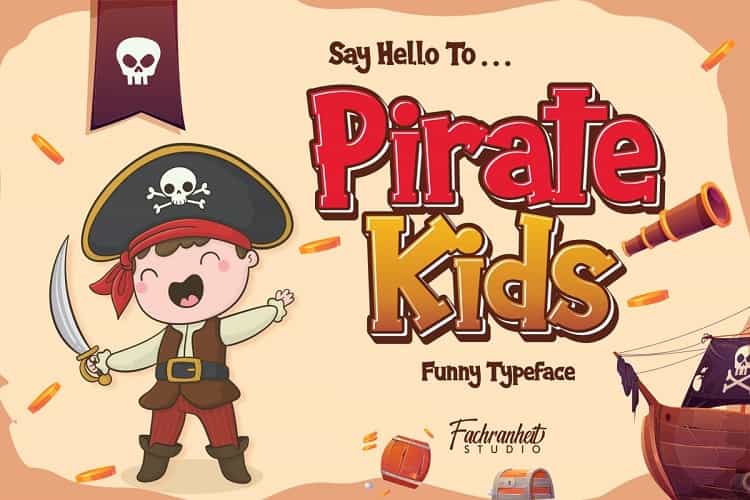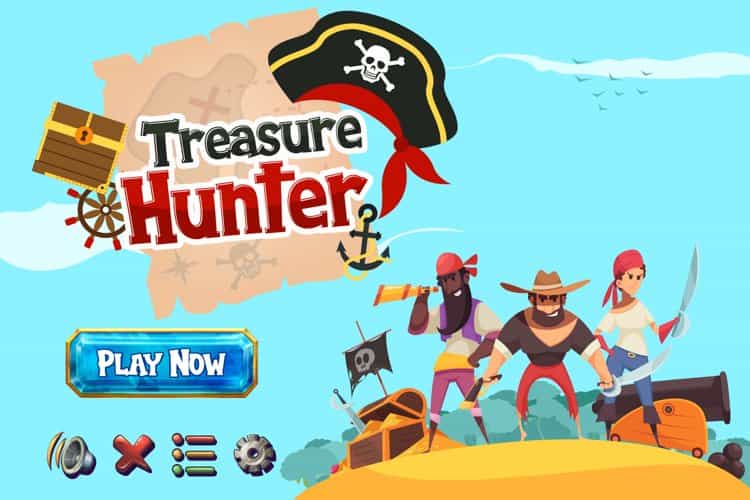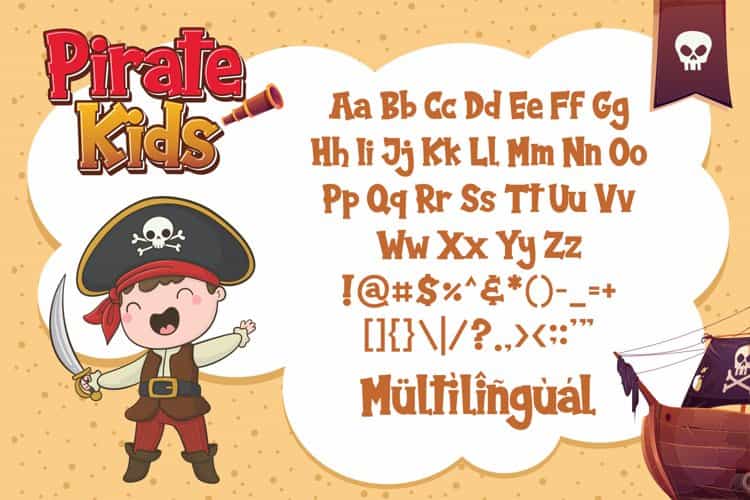
Pirate Kids is a cute and fun cartoon display font that has an immensely friendly appeal to it. It can be used for any purpose from getting the perfect font for your Instagram to finding scripts for calligraphy for home crafts, this font will turn any concept you have into a masterpiece!